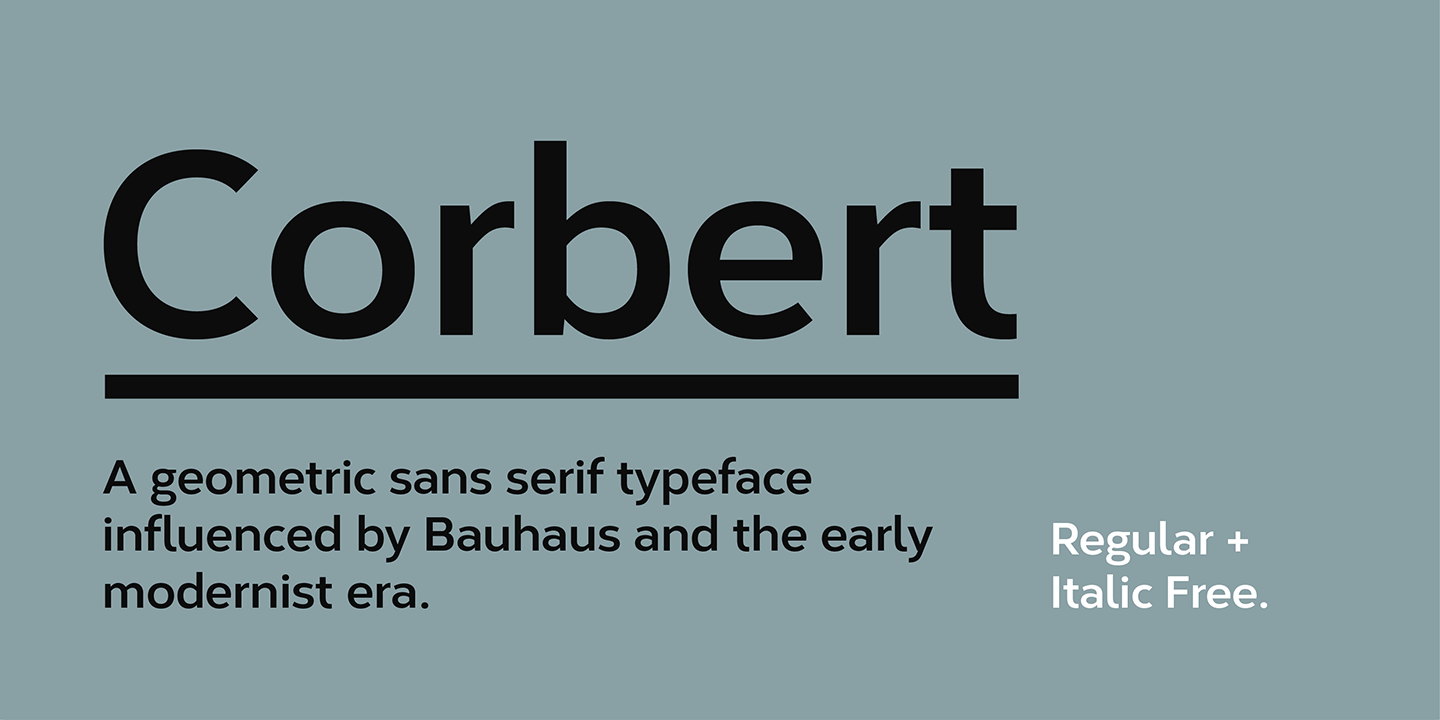
Corbert Font excels in contemporary brand identities, modern editorial design, progressive corporate communications, innovative startup presentations, creative agency portfolios, architectural firm materials, design studio branding, and forward-thinking digital publications. This sophisticated sans-serif typeface brings refined modernism and creative professionalism to any project requiring distinctive, highly readable typography with contemporary character.
What makes Corbert Font exciting is its perfect balance between geometric precision and subtle humanistic details that creates a uniquely approachable yet authoritative voice in modern typography. The font features carefully crafted letterforms with gentle curves and optimized proportions that ensure exceptional readability while maintaining enough personality to distinguish brands from their competitors. Its contemporary sophistication and versatile character make it ideal for organizations seeking to communicate innovation, creativity, and professional excellence without appearing sterile or impersonal. The typeface's modern appeal ensures immediate recognition of forward-thinking design sensibility.
The Corbert Font family includes Light, Regular, Medium, Bold, and Black weights, each available in upright and italic variations. The family offers comprehensive international language support, advanced OpenType features, and stylistic alternates that enhance its versatility for global branding and editorial applications. These variants provide designers with complete flexibility for creating cohesive brand systems and sophisticated typographic hierarchies across multiple touchpoints.
Whether you're designing for creative industries, contemporary brands, or modern publications, Corbert Font Free Download delivers the refined sophistication that defines exceptional contemporary typography. Its combination of geometric clarity and humanistic warmth makes it perfect for communicating innovation, creativity, and professional excellence with authentic modern appeal and timeless design sophistication.